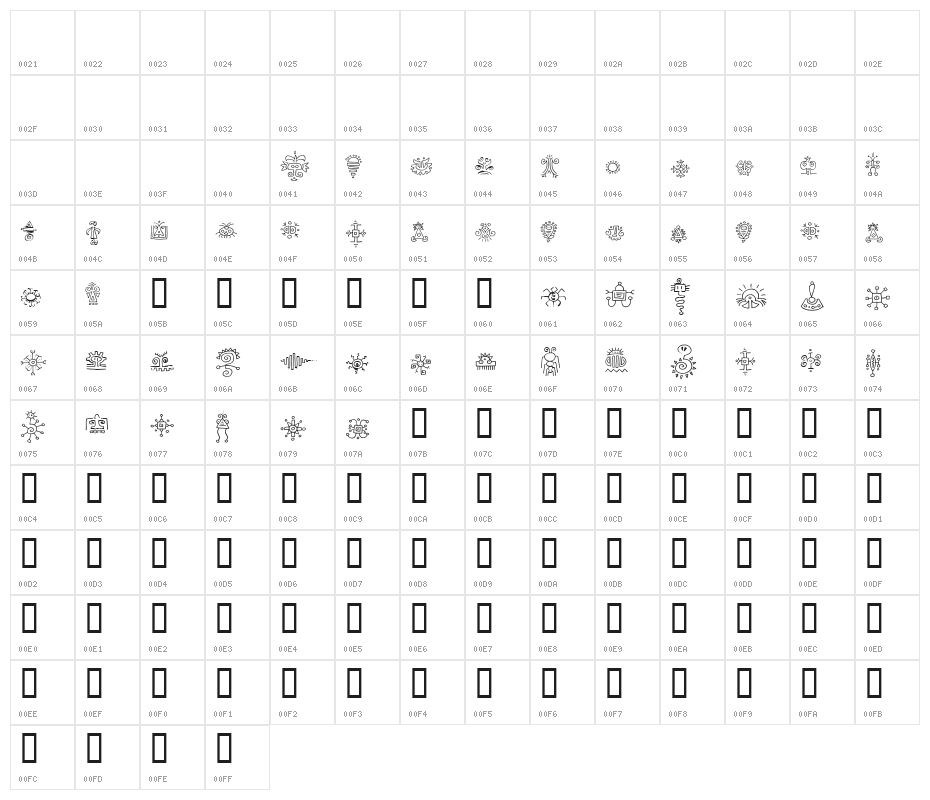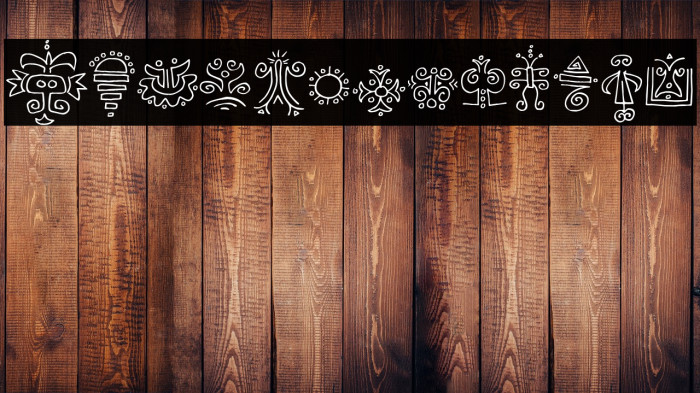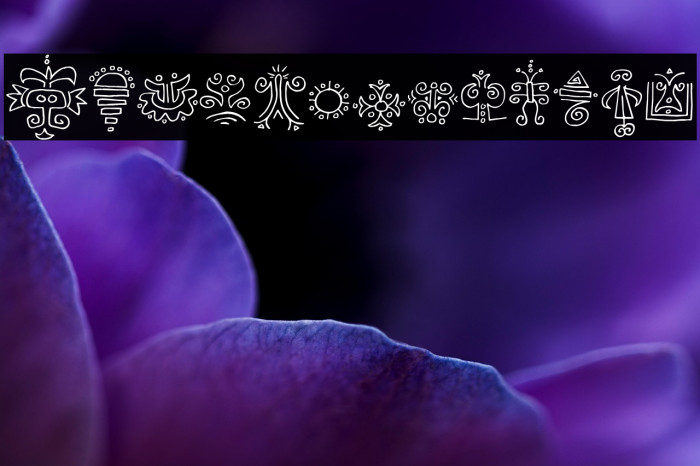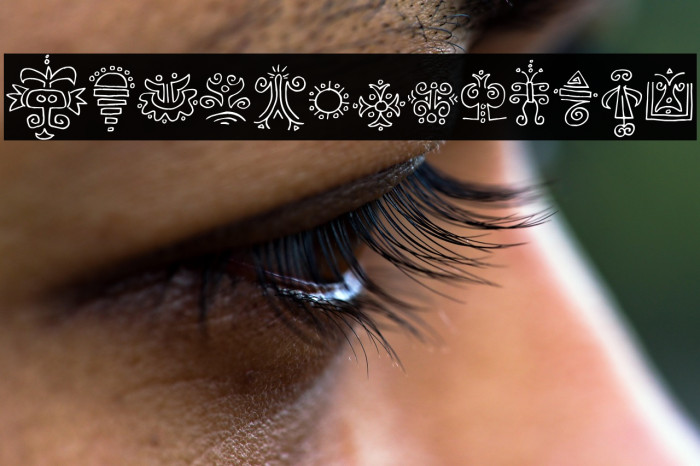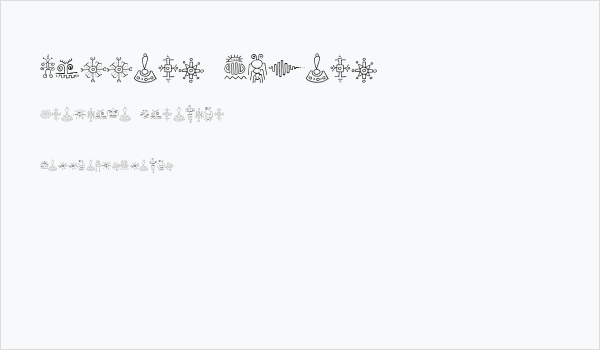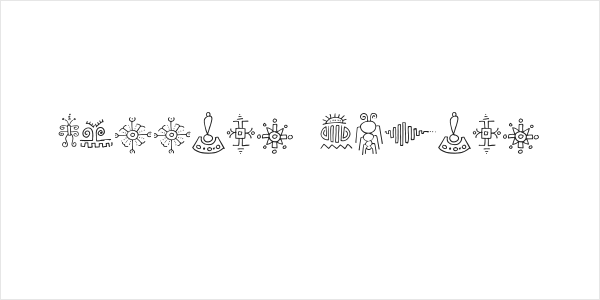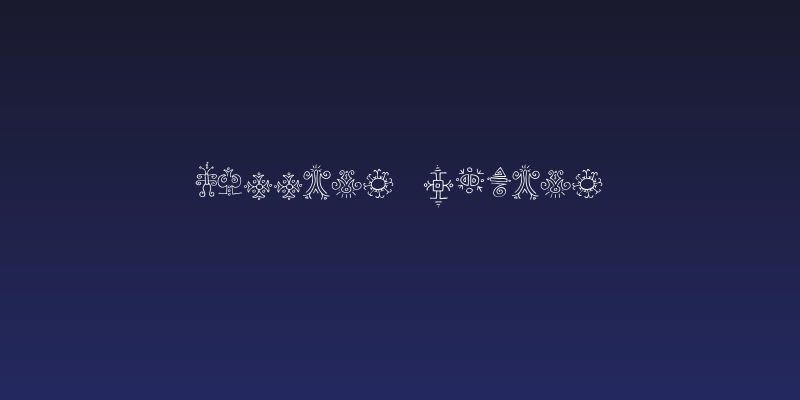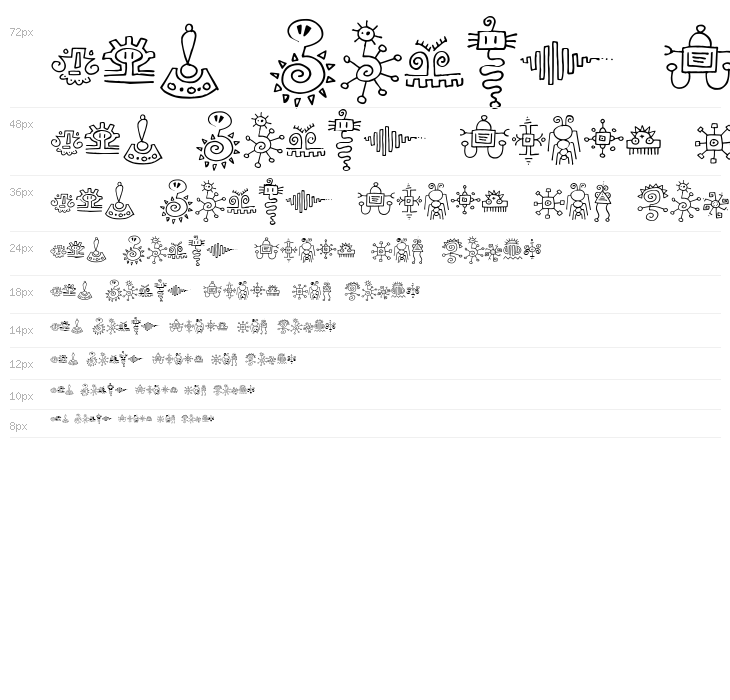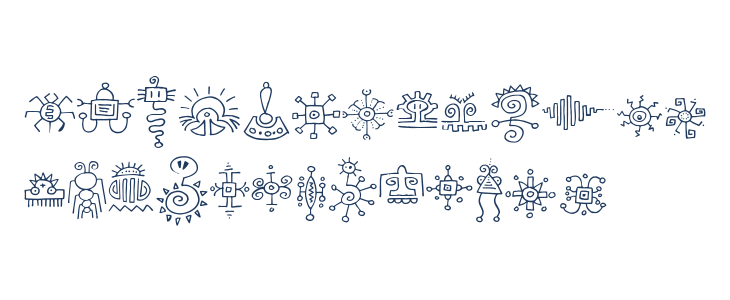
Jiggery pokery Font
Jiggery pokery Description
Highly decorative and abstract font composed of intricate, whimsical glyphs with a tribal or totemic influence, featuring playful linework, geometric shapes, and dot accents. Each character is unique and visually complex, resembling pictograms or symbolic illustrations rather than traditional letterforms.
| Overall Style | Decorative, Abstract, Whimsical, Tribal |
| Use Case | Logos, Headlines, Posters, Artistic projects |
| Proposed Projects | Posters, album covers, branding for creative industries, childrenΓ’β¬β’s books, event invitations, art installations. |